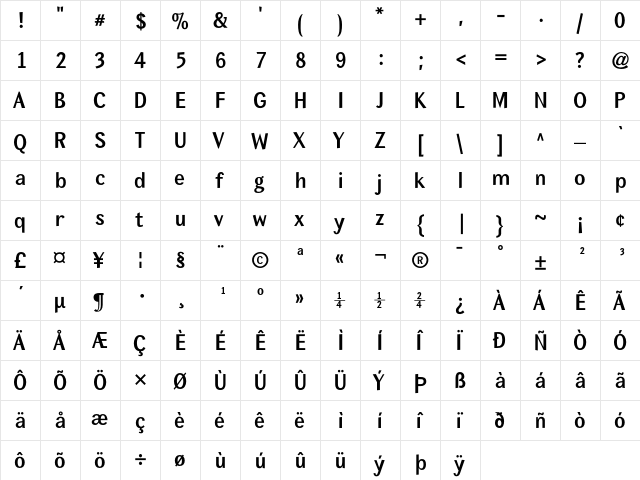
MexSans Bold
Design Context for MexSans Typeface
MexSans offers clean, dependable letterforms without strong stylistic allegiance, making it a practical choice for designers who need flexibility. The heavy weight commands attention and anchors typographic hierarchies.